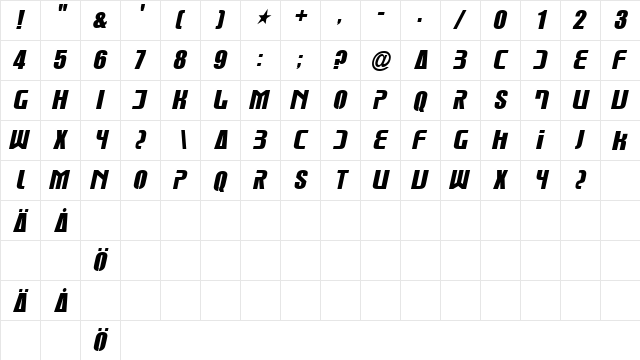
Glue Klinging Klan Italics Regular
Design Context for Glue Klinging Klan Italics Typeface
Glue Klinging Klan Italics is a composed and adaptable typeface that performs quietly and consistently across a wide range of design contexts. The dynamic lean of this cut emphasises speed and emphasis in any layout.
Pro Tip: Try Glue Klinging Klan Italics for annotation and caption copy alongside an upright companion — the contrast in angle creates a dynamic but ordered typographic system.